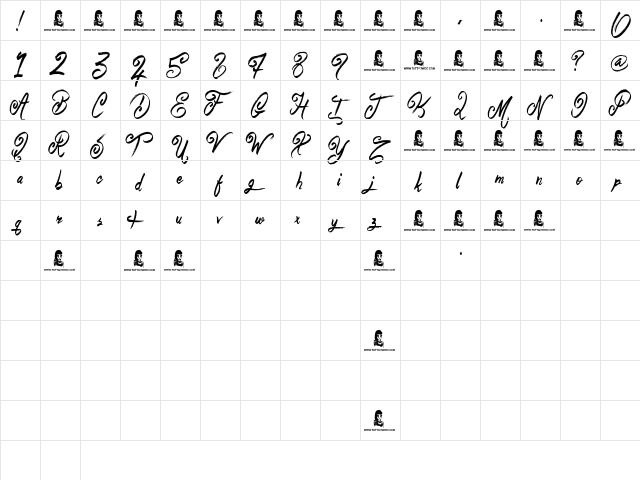
Believer Fever Regular
| Foundry | Jonathan S. Harris |
| Designer | Jonathan S. Harris |
Design Context for Believer Fever Typeface
Believer Fever is a composed and adaptable typeface that performs quietly and consistently across a wide range of design contexts.